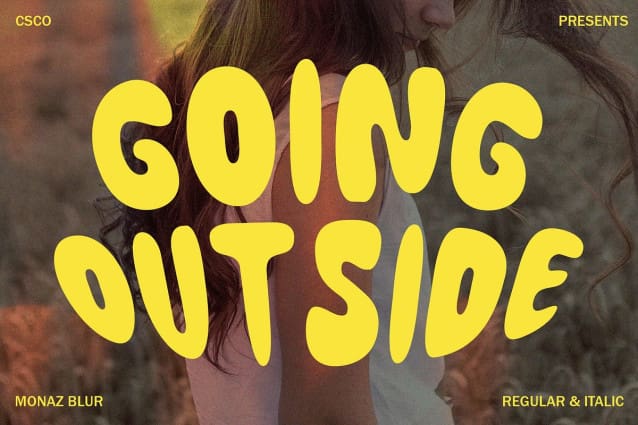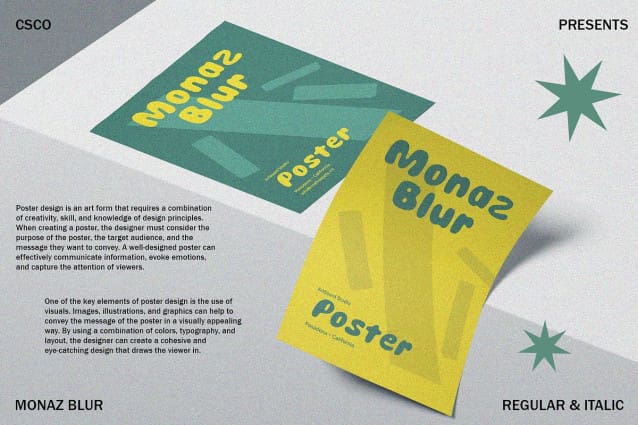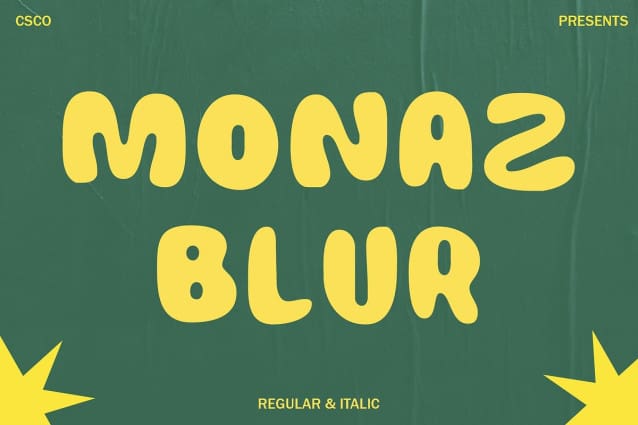
Monaz Blur Font
Monaz Blur Font is a delightful display font that features a charming and soft blur vibe. Perfect for creating eye-catching displays, this font brings a touch of whimsy and elegance to your designs.
With its adorable design and gentle blur effect, Monaz Blur adds a unique and playful touch to any project. The soft edges create a dreamy and inviting feel, making it ideal for posters, greeting cards, and other designs that need a cute and captivating look.
Whether you’re designing a flyer for a children’s event or creating packaging for a charming product, Monaz Blur is sure to stand out. Its unique blur effect and charming design make it perfect for displays that demand attention and convey a sense of fun.
Versatile and Easy to Use
Despite its distinctive appearance, Monaz Blur is versatile and easy to use. The font works well in both large and small sizes, making it suitable for a variety of applications, from headlines and banners to logos and more. With its cute blur vibe, Monaz Blur adds a captivating and enchanting touch to any design.